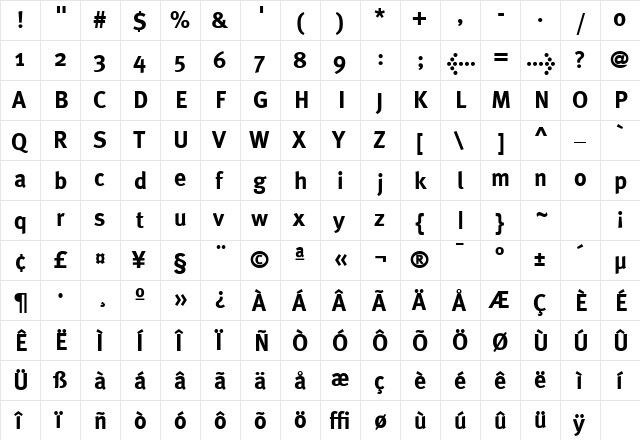
MetaPlus Bold Roman Regular Font Preview
MetaPlus Bold Roman Regular
MetaPlus Bold Roman Regular Font Details
Design Context for MetaPlus Bold Roman Typeface
MetaPlus Bold Roman is a composed and adaptable typeface that performs quietly and consistently across a wide range of design contexts. The heavy weight commands attention and anchors typographic hierarchies.